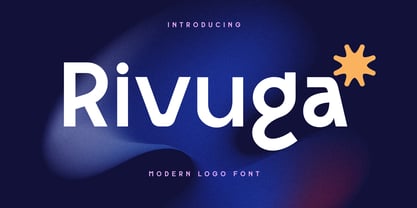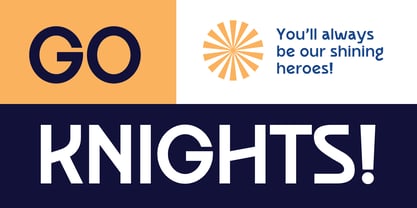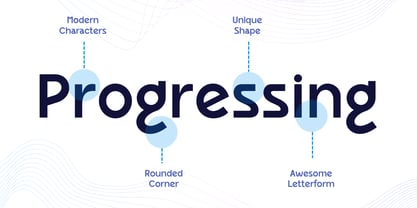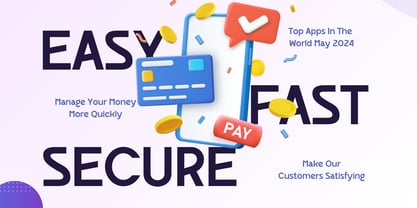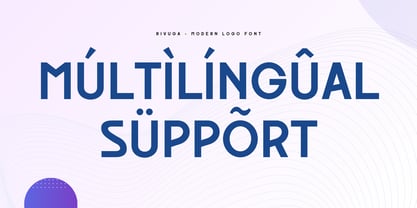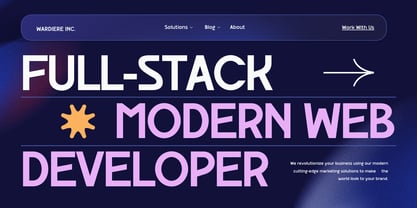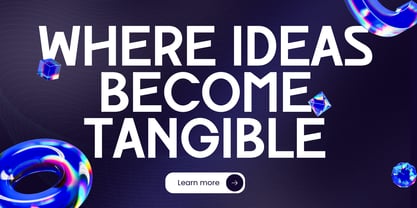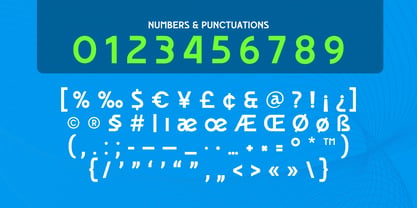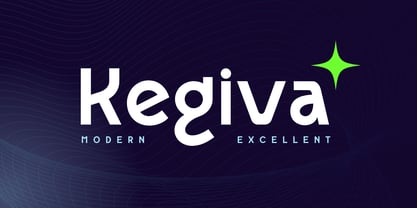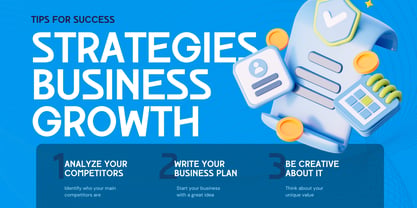
Rivuga
Rivuga - Modern Logo Font
Rivuga is a modern font crafted to meet the needs of today’s technology-driven world. Its clean lines and sleek design make it an ideal choice for logos, tech branding, and any project that demands a forward-thinking aesthetic. Inspired by the fast-paced nature of technological advancements, Rivuga combines elegance with functionality. It ensures that your brand stands out with a contemporary edge while maintaining readability and professionalism. Whether you’re designing a logo, website, or tech-related promotional material, Rivuga provides a sophisticated and modern look that aligns perfectly with the digital age.
Rivuga Modern Logo Font Features:
• Unique Characters Ready
• Punctuation, Number, and Symbol
• Uppercase and Lowercase
• Multilingual Support
• Opentype Features